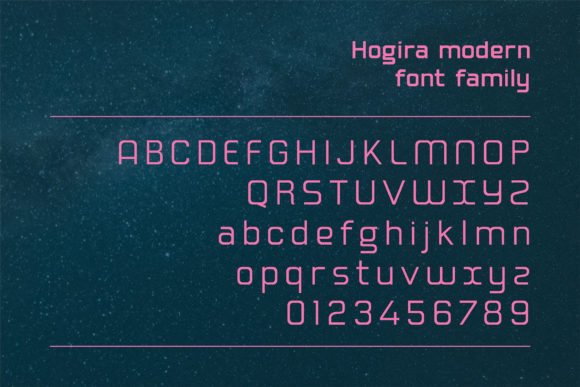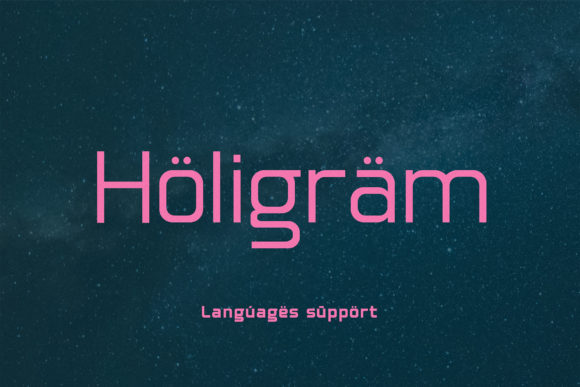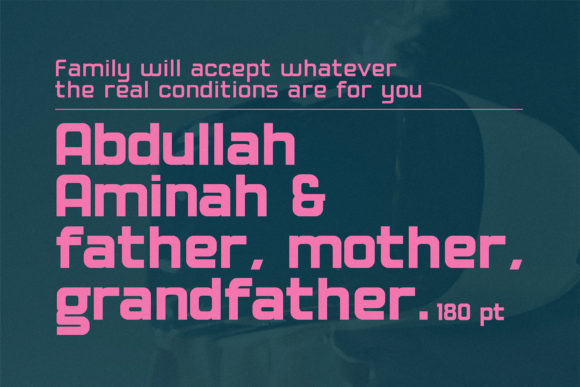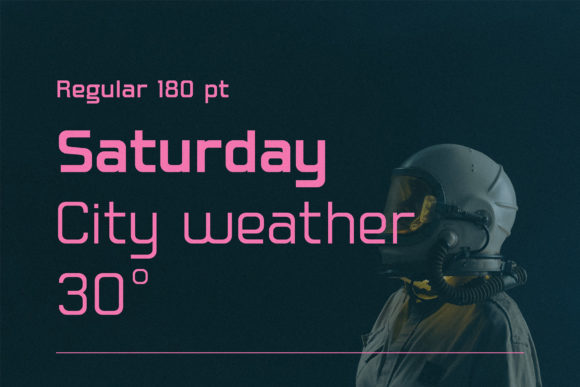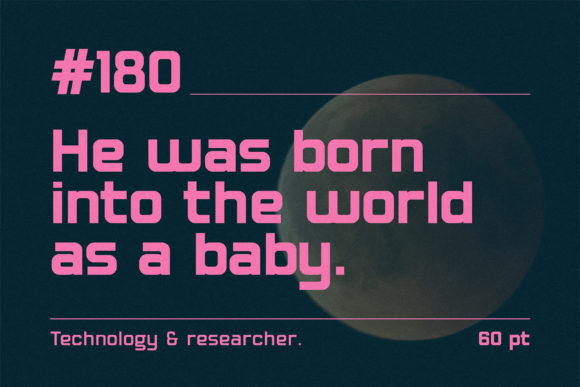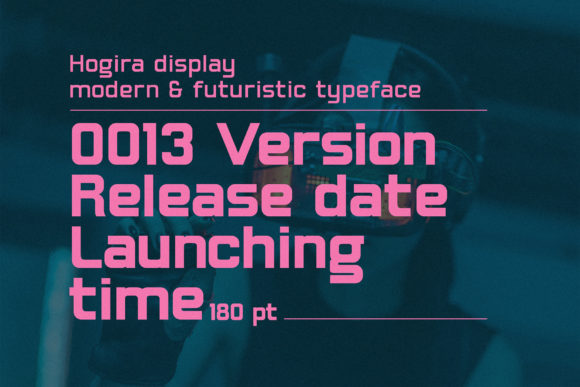
Introduction to Hogira Font
Inspired by technological developments, Hogira is a future-looking display font, Hogira is very suitable for use in writing titles, making text-based logos, websites, and modern design types that are related to emerging technology themes.
Key Features of Hogira Font
Why Choose Hogira Font?